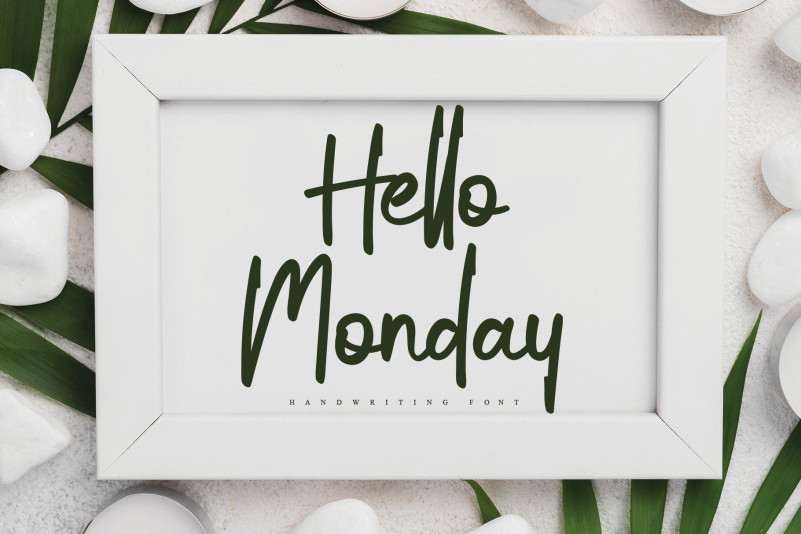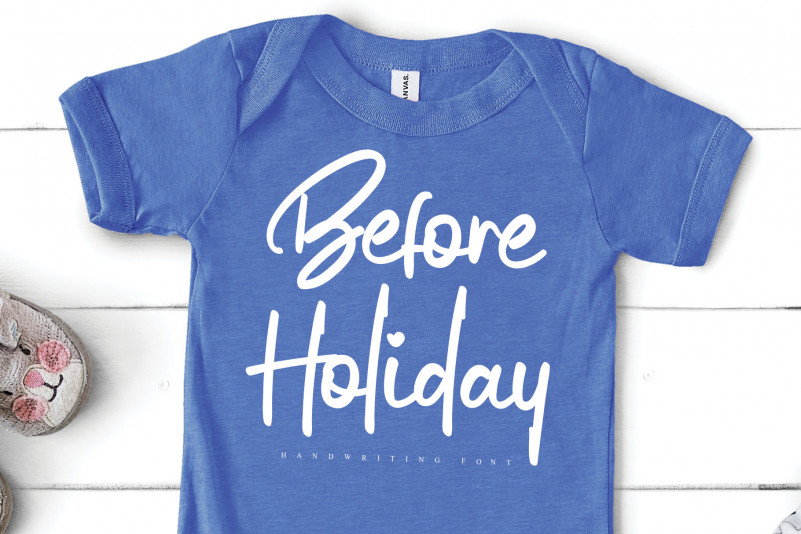
Brilliant Creative Script Font
Introducing Brilliant Creative Script Font – The latest style letters are perfect for wall displays, wedding invitations, social media post logos, advertisements, product packaging, product designs, labels, photography, watermarks, invitations, stationery,and any project that requires taste handwriting.